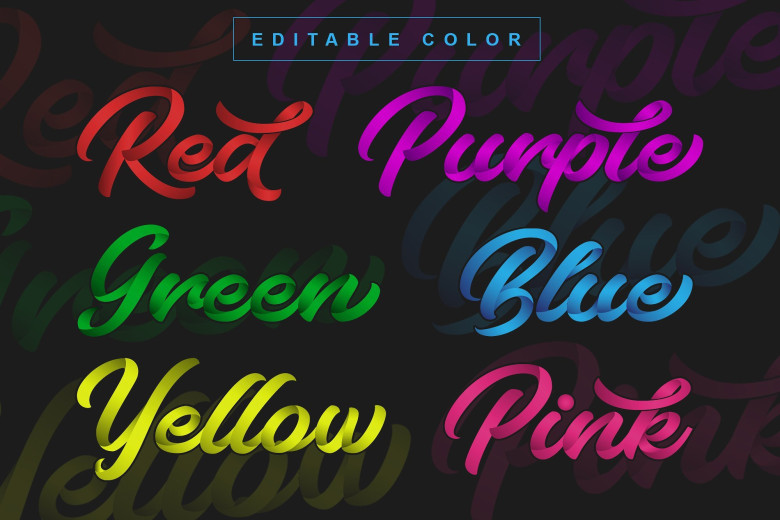
Bluesky Script Font
Introducing Bluesky. It is designed by Blankids Studio, this is a premium font, are sold on creativemarket, but it was great, it is free today for download. This font has basic blue color but you can change the color like a you want please see tutorial video to use this font very easy to use you just typing and change color like a you want :). Very recomended use to a logotype, display, title, packaging, headline, poster, Bussiness card and etc.